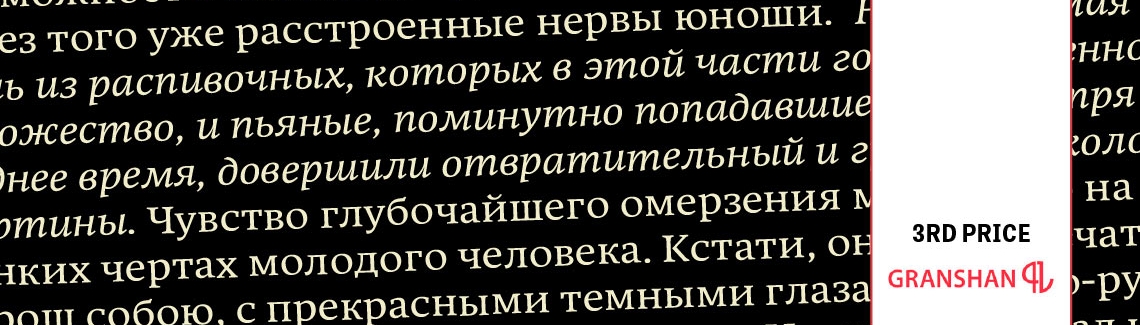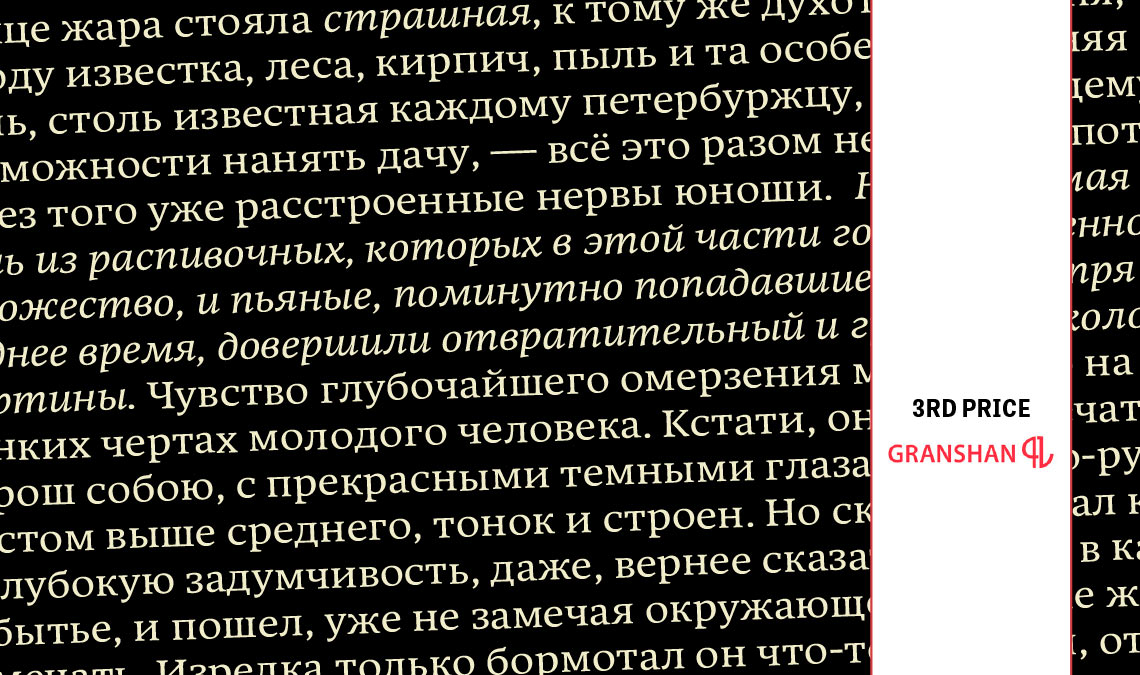
Granshan Awards 2015
Karmina Cyrillic awarded with the third prize in the Granshan competition in the category Cyrillic Text Typefaces
We are very happy to announce that Karmina Cyrillic, designed by Veronika Burian, has received the third prize in the Granshan competition in the category Cyrillic Text Typefaces. This Cyrillic of Karmina is a commissioned extension for editorial purposes and will be commercially released as part of Karmina in the next months. Consultation by Alexandra Korolkova.